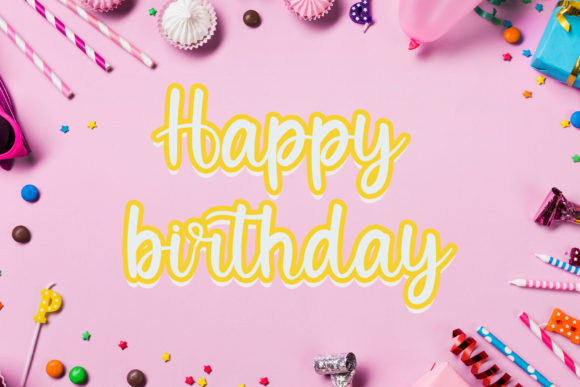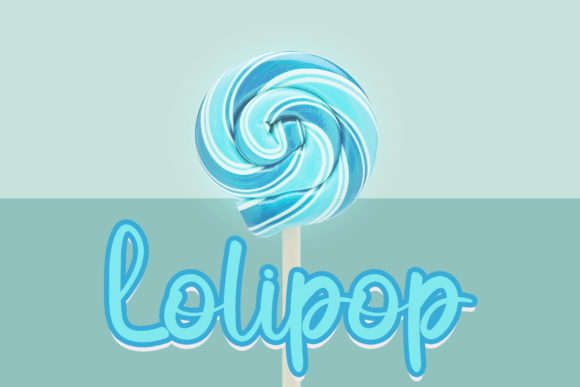
Candyland Font
db-ku.com - Script & Handwritten -- Candyland is a sweet handwritten font that is made with great care in order to produce the expected outcomes. This font can be used for writing various kinds of products according to their respective needs.